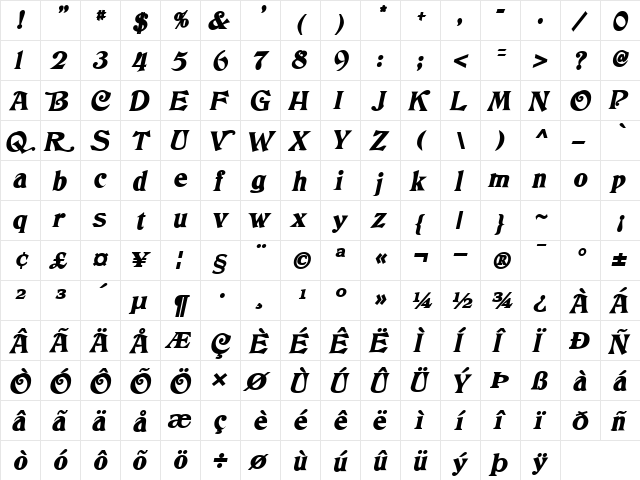
ParaisoSSK BoldItalic
Design Context for ParaisoSSK Typeface
ParaisoSSK is a composed and adaptable typeface that performs quietly and consistently across a wide range of design contexts. The dynamic lean of this cut emphasises speed and emphasis in any layout. The heavy weight commands attention and anchors typographic hierarchies.